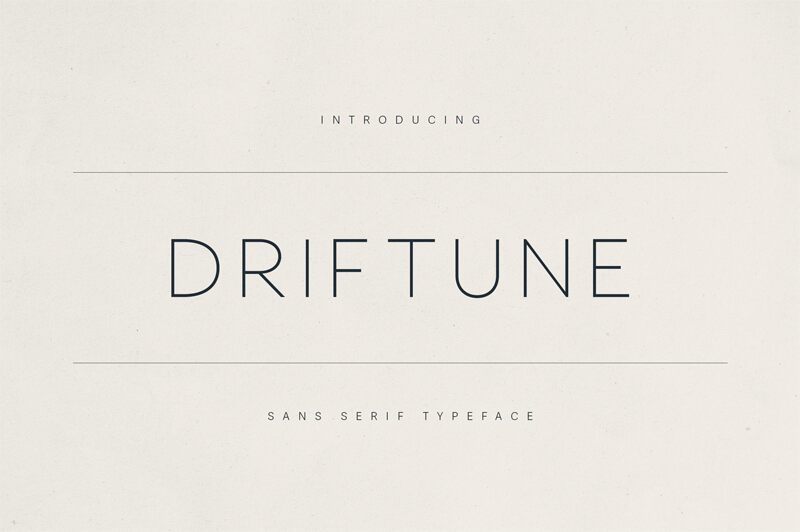
Driftune is a minimalist sans serif font designed with versatility in mind. Created by VPcreativeshop, it takes pride in presenting sophisticated and understated letters that’ll add a feeling of sophistication to your typography projects. This one’s a free font for personal use available in a single style/weight.
Use a legible sans serif like Driftune in a variety of design projects where legibility is key. Poster designs, book and magazine covers, website and app design, social media campaigns, banners, flyers, and others. The font is excellent both for short and long text such as headlines or paragraphs.